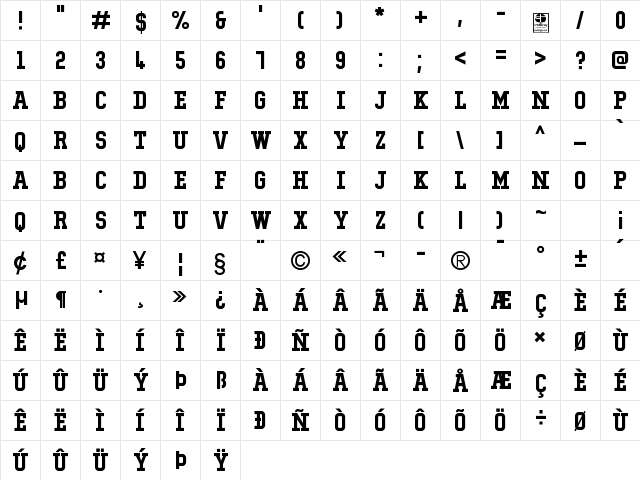
Typo College Demo Regular
Design Context for Typo College Demo Typeface
Typo College Demo has the bold swagger of sports branding: strong, assertive letterforms designed to dominate headlines and jerseys alike.
A natural choice for gym brands, fantasy sports, jersey lettering, and action-driven headlines.
Font Pairing: Use alongside a condensed or geometric sans for supporting copy — keep the pairing bold, functional, and free of ornament.
Pro Tip: Use Typo College Demo in all-caps headlines where its athletic energy can fully express itself. Pair with a solid, simple sans for supporting text.